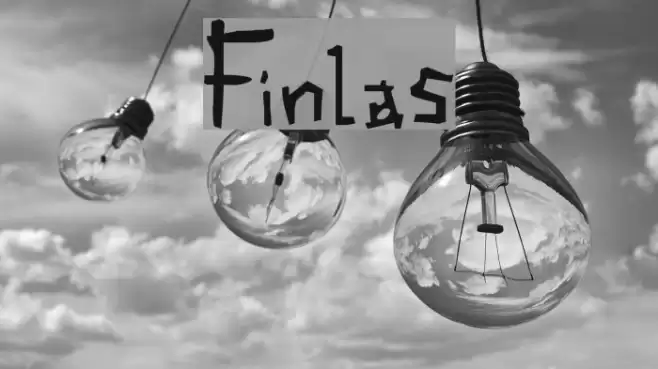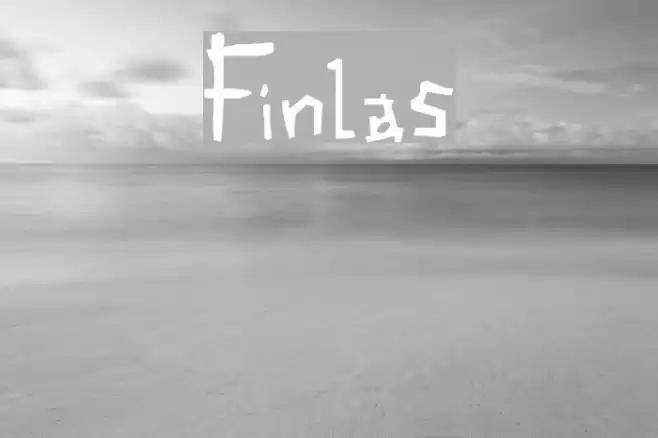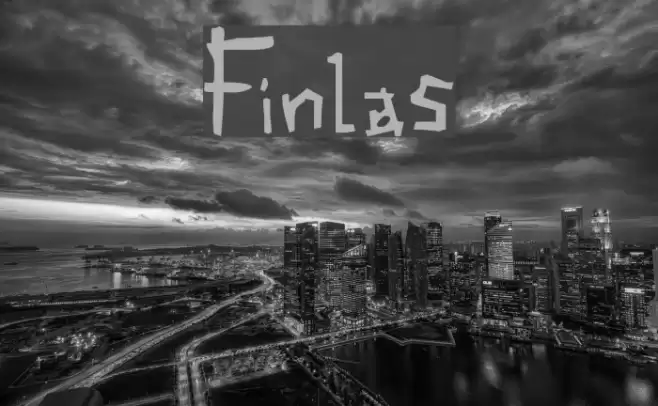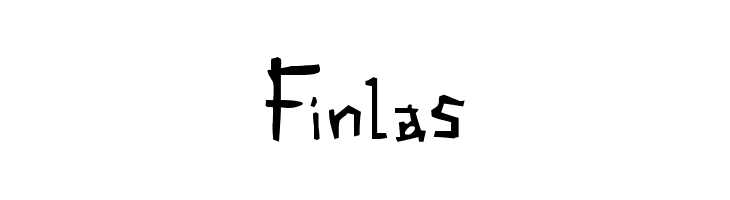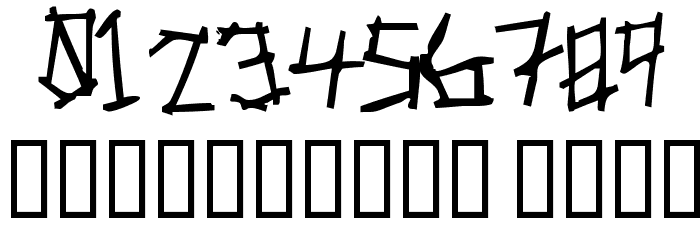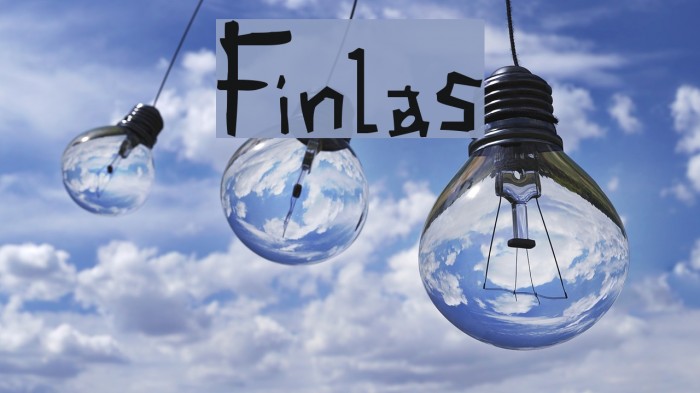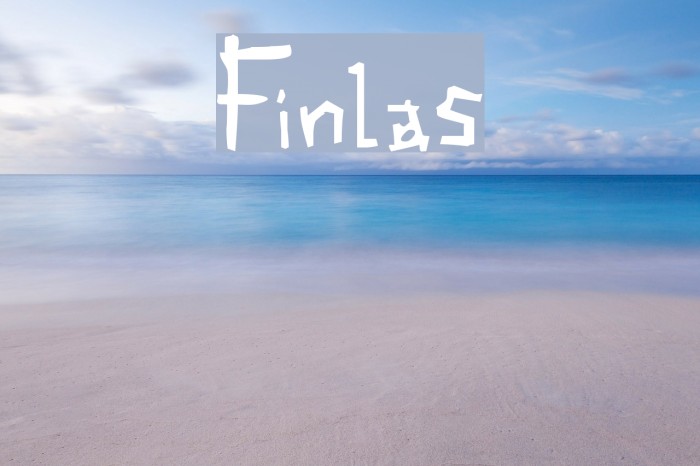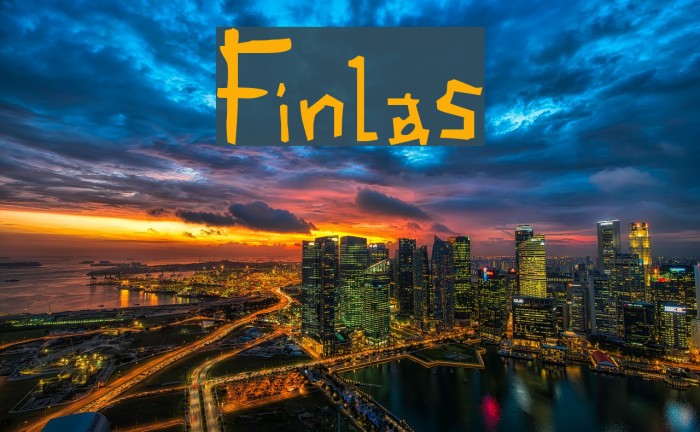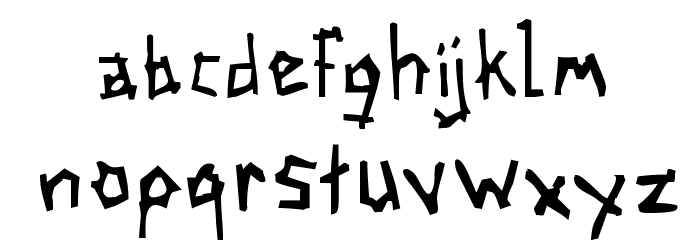
Finlas Font
Finlas Description
This font features a highly irregular and jagged design, reminiscent of hand-drawn or graffiti styles. The characters are unevenly shaped, with varying stroke thicknesses that give it a raw, edgy appearance. The uppercase and lowercase letters maintain a consistent style, with sharp angles and a slightly chaotic structure. Numbers and special characters follow the same aesthetic, adding to the font's unique and unconventional look. The overall design suggests a sense of rebellion and nonconformity, making it stand out in any setting.
A jagged, hand-drawn style font with an edgy, graffiti-like appearance from Uncategorized fonts.
- Proposed Projects: Ideal for projects requiring a bold, rebellious look, such as album covers, street art designs, or edgy branding materials.
- Overall Style: Edgy, Rebellious, Graffiti
- Use Case: Logos, Posters, Album Covers